Showa 5‑Font Premium
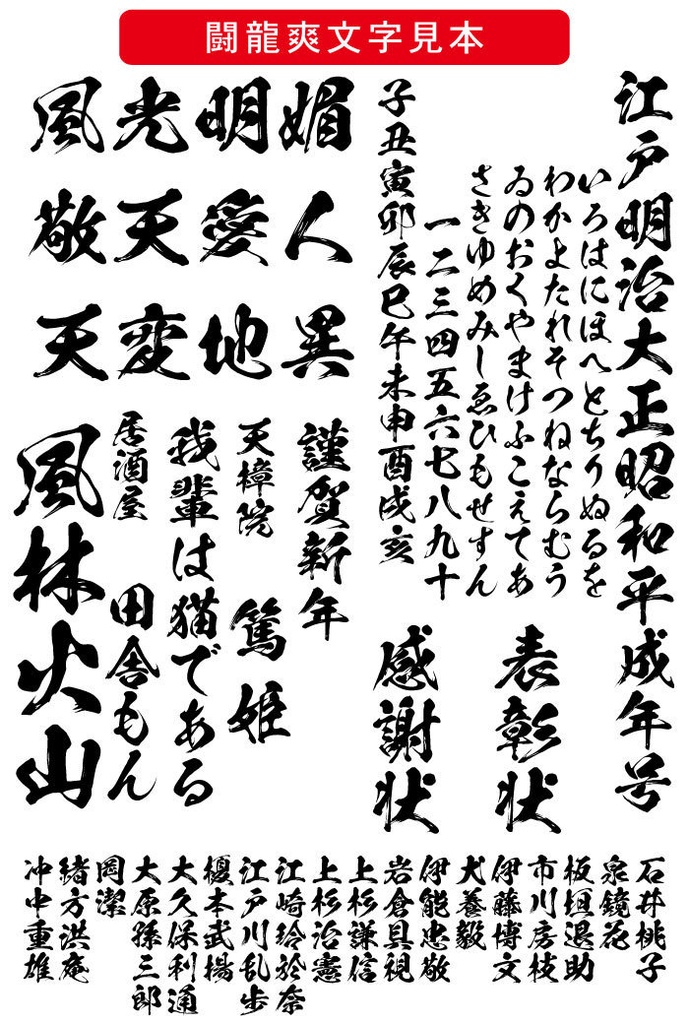
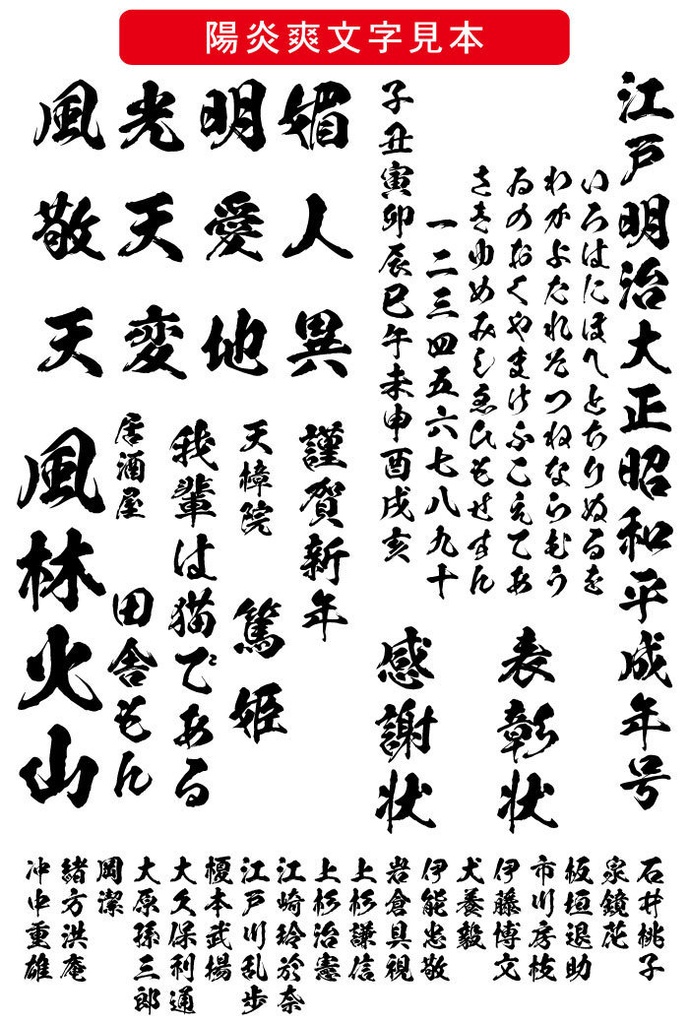
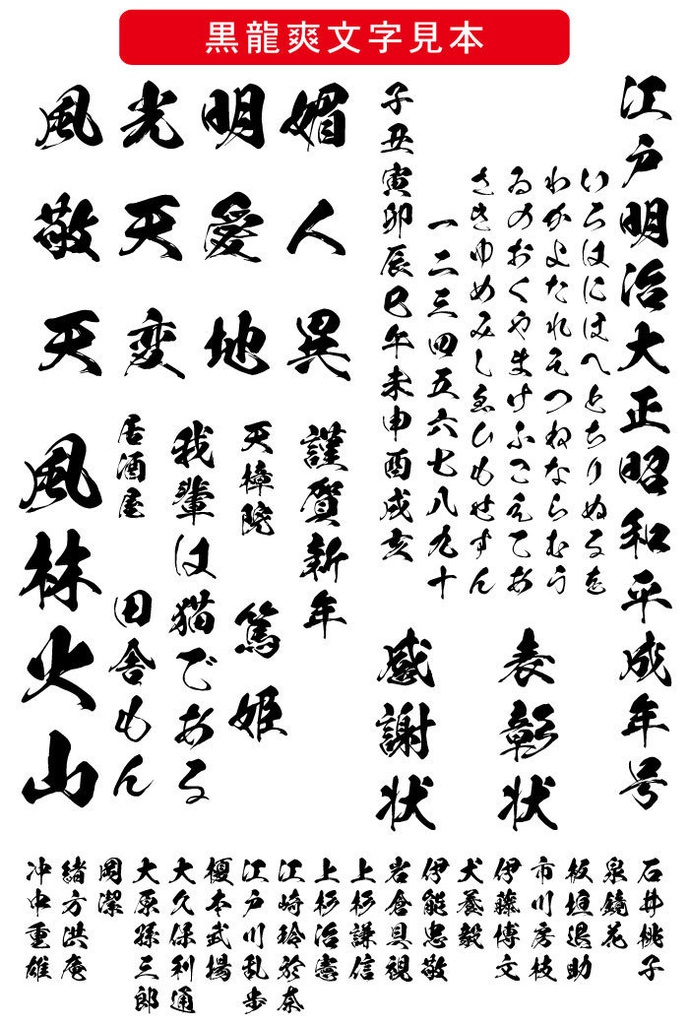
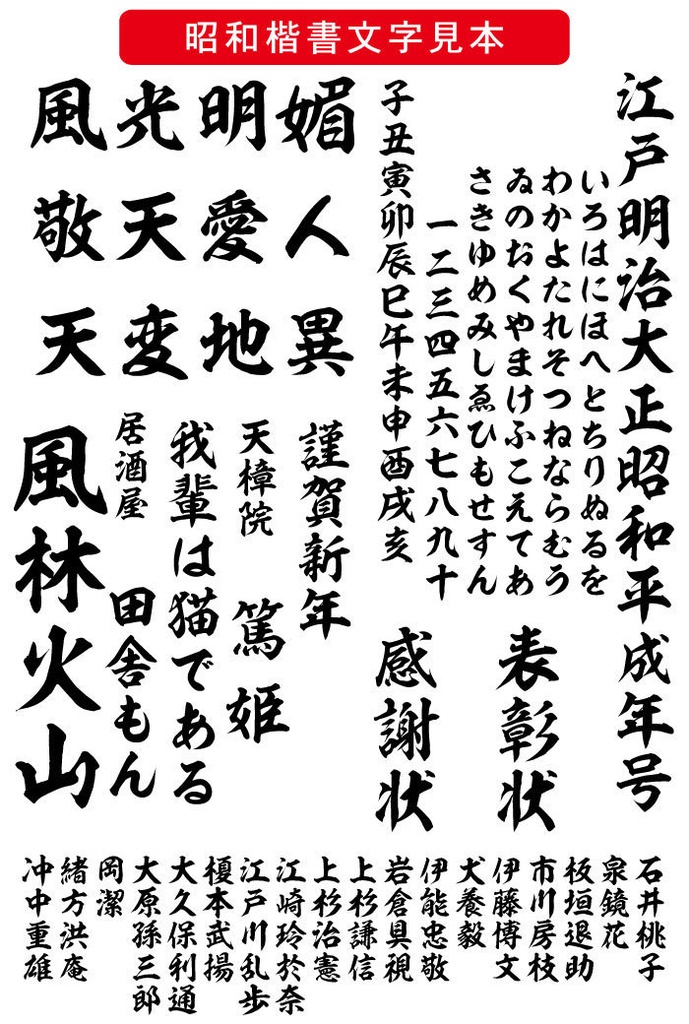
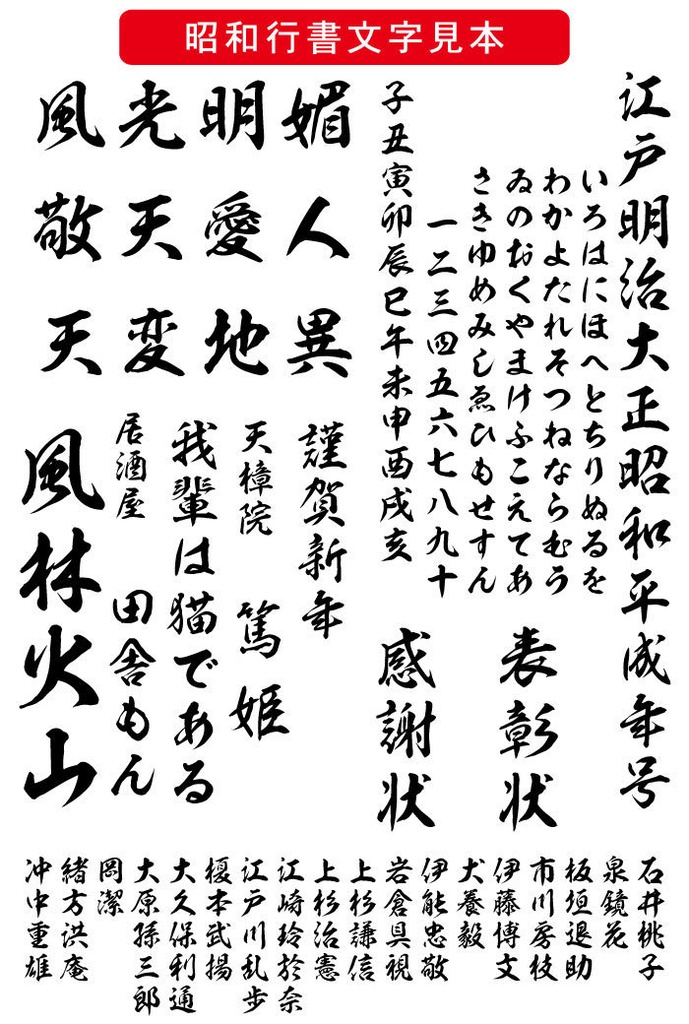
Showa 5 Premium Set — Included Typefaces • Toryu-sou — “Dragon Surge” Powerful and dynamic brush strokes (used in Demon Slayer) • Kagerou-sou — “Haze Breeze” Expressive, energetic calligraphy (used in Demon Slayer) • Kokuryu-sou — “Dark Dragon Breeze” Bold, heavy, and impactful brush style (used in Demon Slayer) • Showa Kaisho A dignified and traditional kaisho (standard script) • Showa Gyosho A beautifully flowing semi-cursive script Please refer to the attached materials for samples of all five typefaces. License and Pricing Price: 100,000 JPY for one PC license (Desktop License)